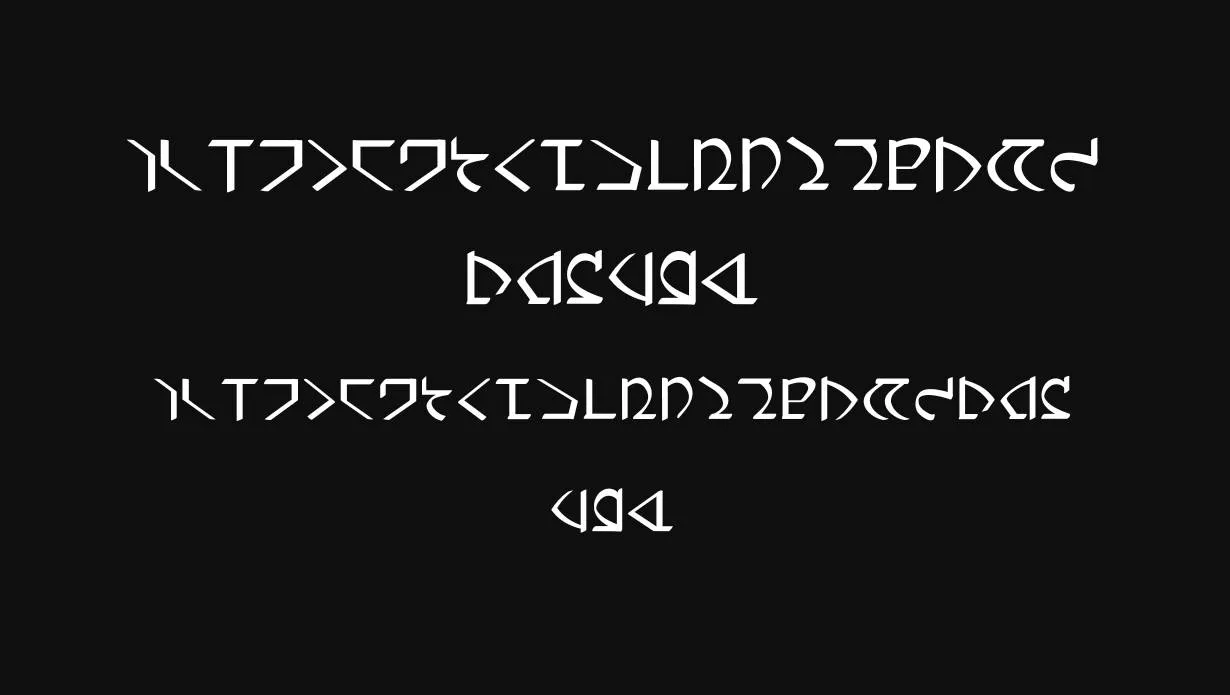
Dwemer Font is inspired by the Dwemer script from the Elder Scrolls series. It’s often used in fantasy-themed designs, role-playing games, and creative projects that aim to capture a sense of fantasy and adventure.
| Name | Dwemer Font |
| Designer | Pixel Sagas |
| Style | Dingbats |